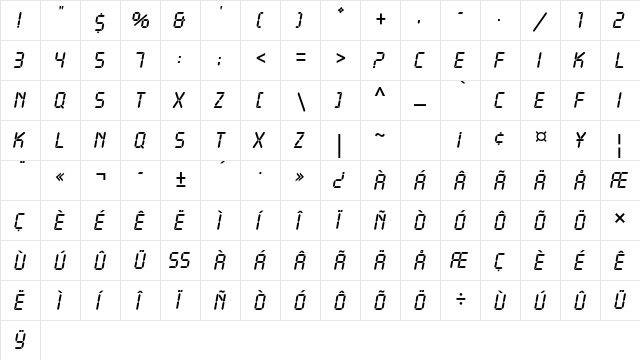
LCD Std Regular
| Designer | Alan Birch |
Design Context for LCD Std Typeface
LCD Std is a composed and adaptable typeface that performs quietly and consistently across a wide range of design contexts.